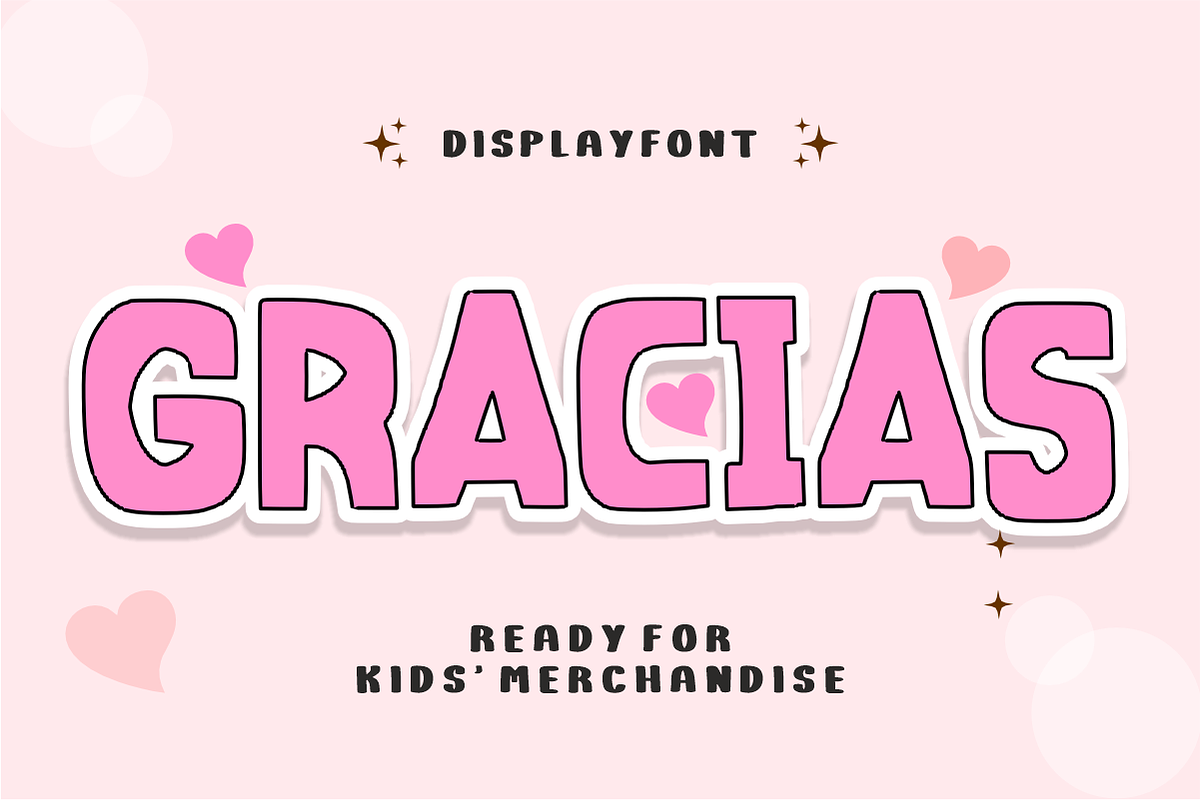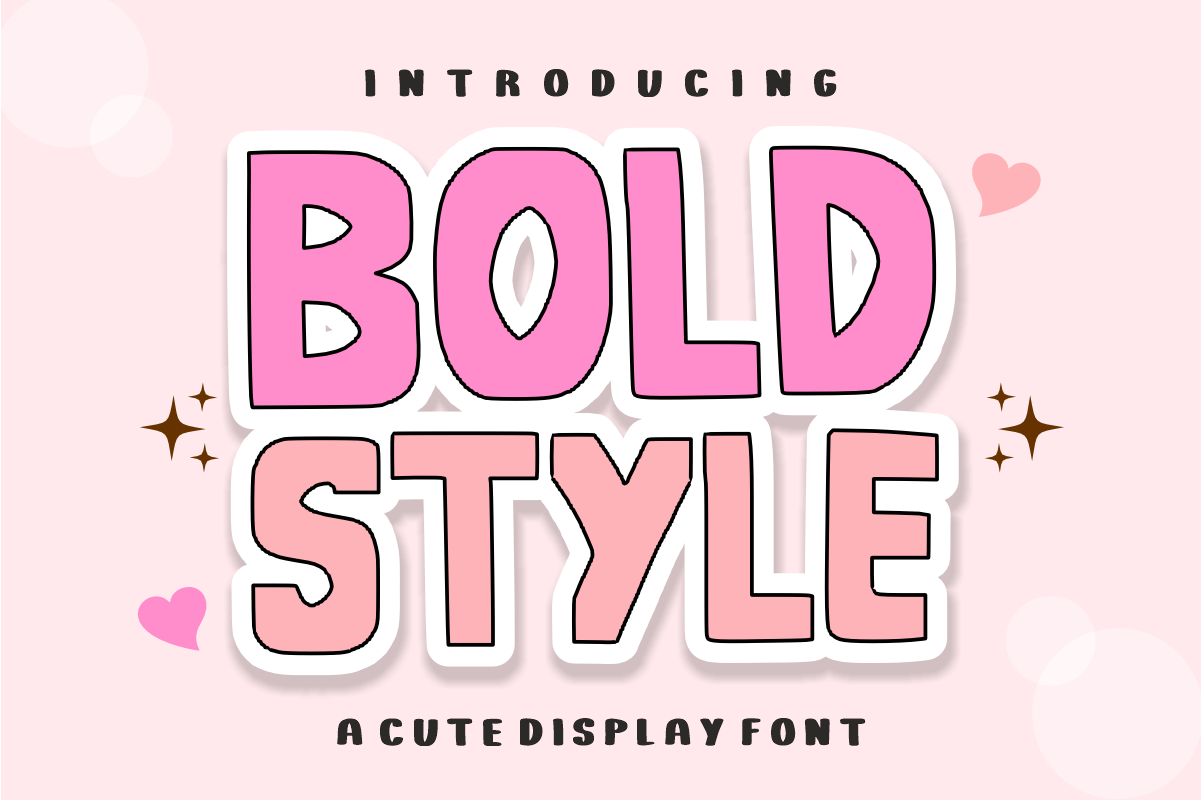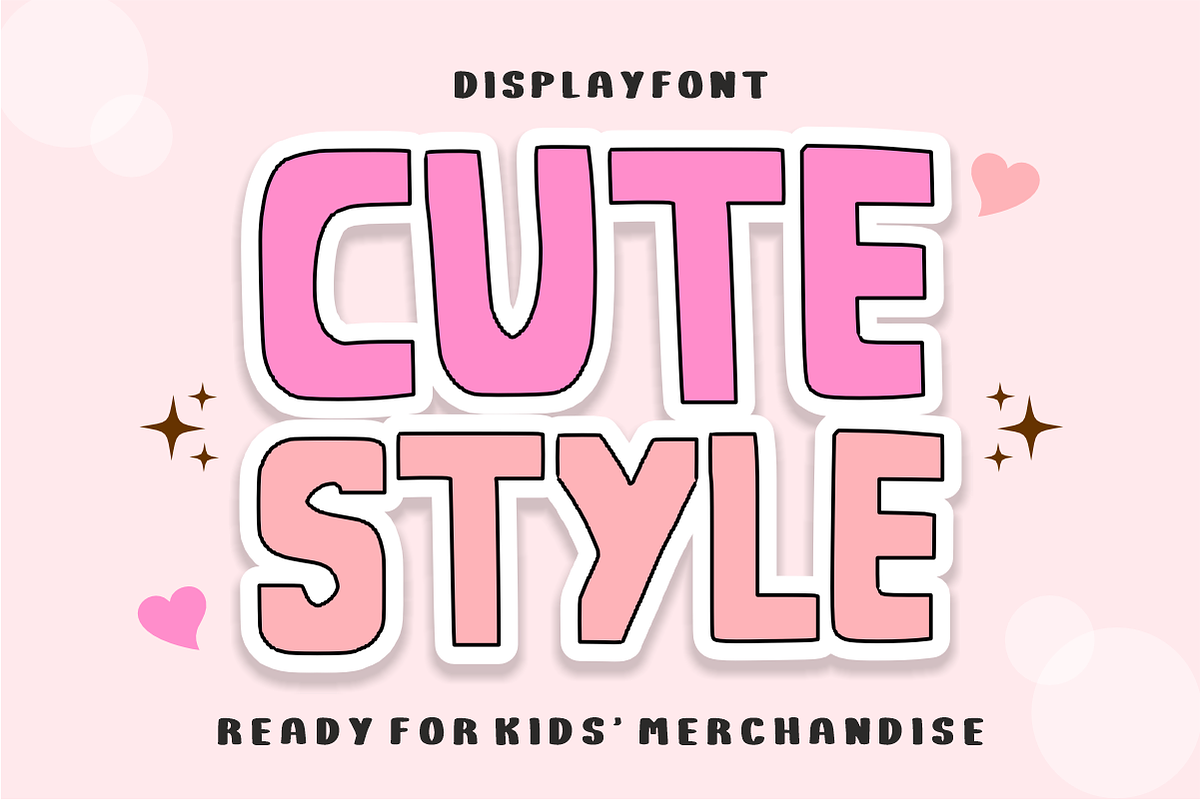
Bold Style - Cute Display Font
Bold Style - Cute & Playful Display Font
Make a big, friendly statement with Bold Style! This chunky, hand-drawn display font is the definition of "cute and bold," featuring soft, rounded letterforms that bring instant joy to any creative layout. Engineered for high impact and maximum legibility, it is designed to turn your headlines into charismatic focal points with a playful, bubbly aesthetic.
Whether you are building a vibrant brand identity, crafting engaging social media content, or developing modern product packaging, Bold Style balances a fun, casual vibe with professional design precision. It is highly versatile and fully optimized for seamless integration into your premium digital and print design workflows.
All-Caps Character Set (Chunky, bubbly uppercase letters with a hand-drawn feel)
Numbers & Basic Punctuation (Essential, simple symbols included)
Playful Brand Identities & Creative Logo Design 🎨
Social Media Graphics & Engaging Marketing Content 📱
Modern Product Packaging & Eye-Catching Labeling 📦
Kids’ Merchandise, Apparel, & Youth Branding 👕
Greeting Cards, Stickers, & Whimsical Editorial Layouts 💌